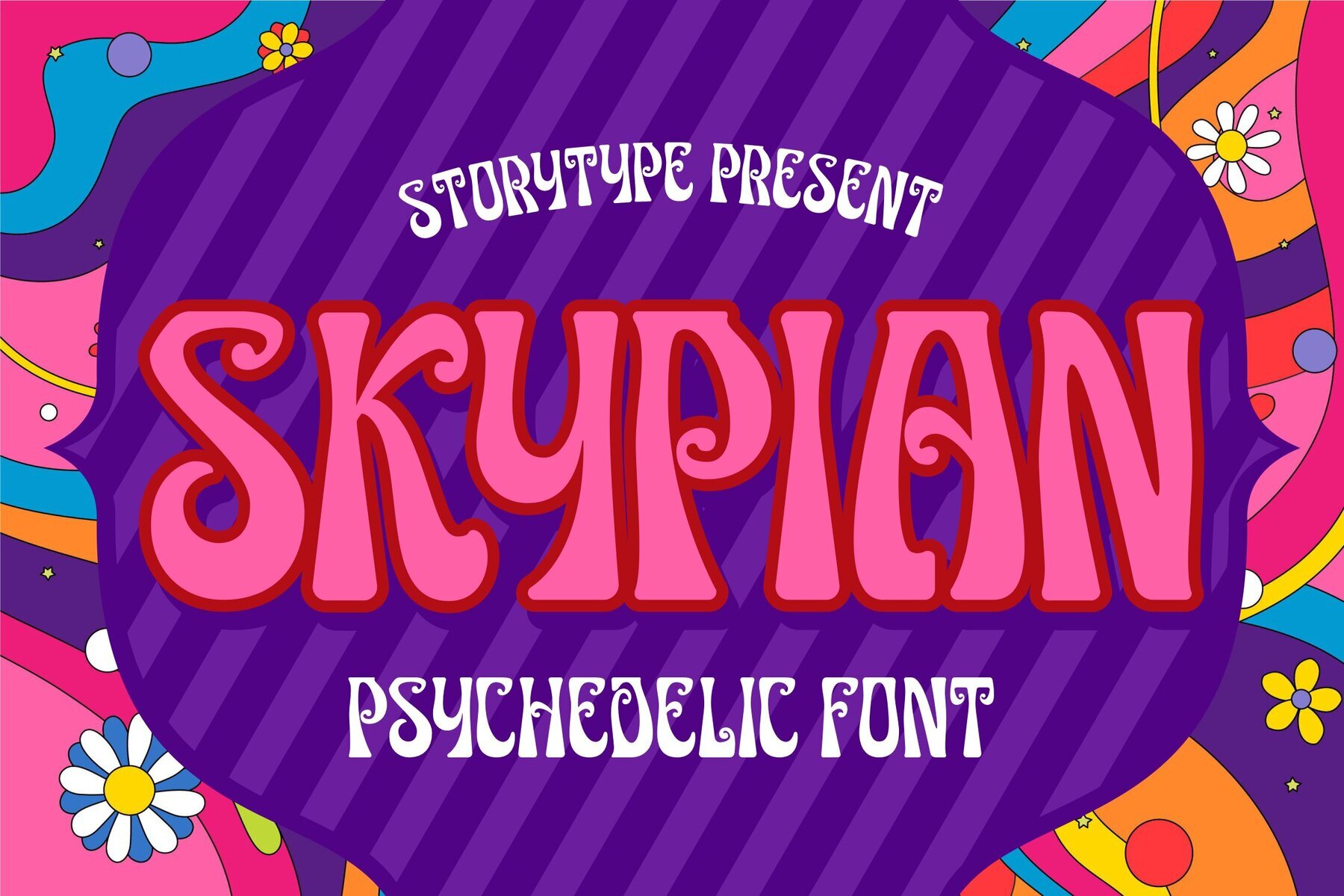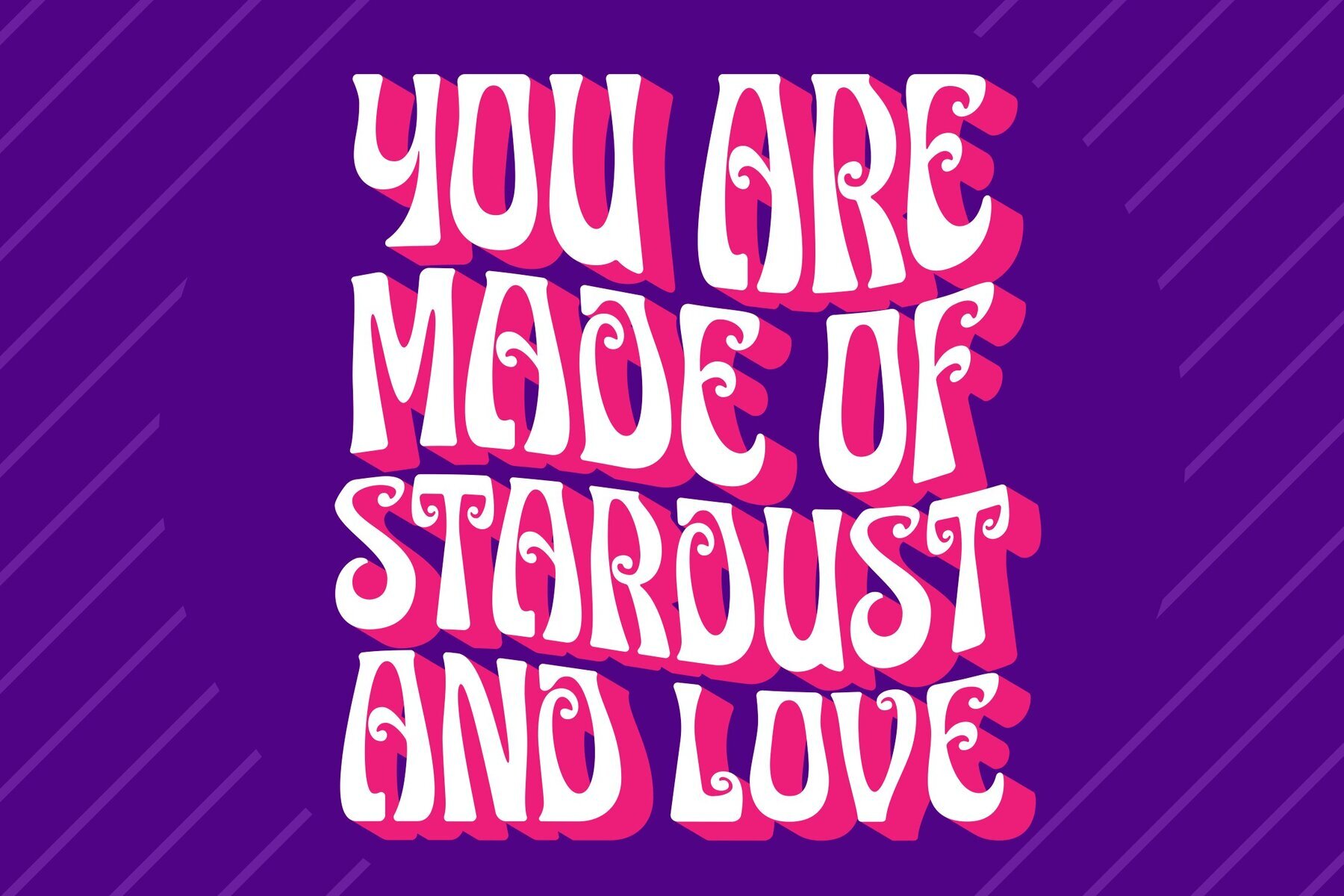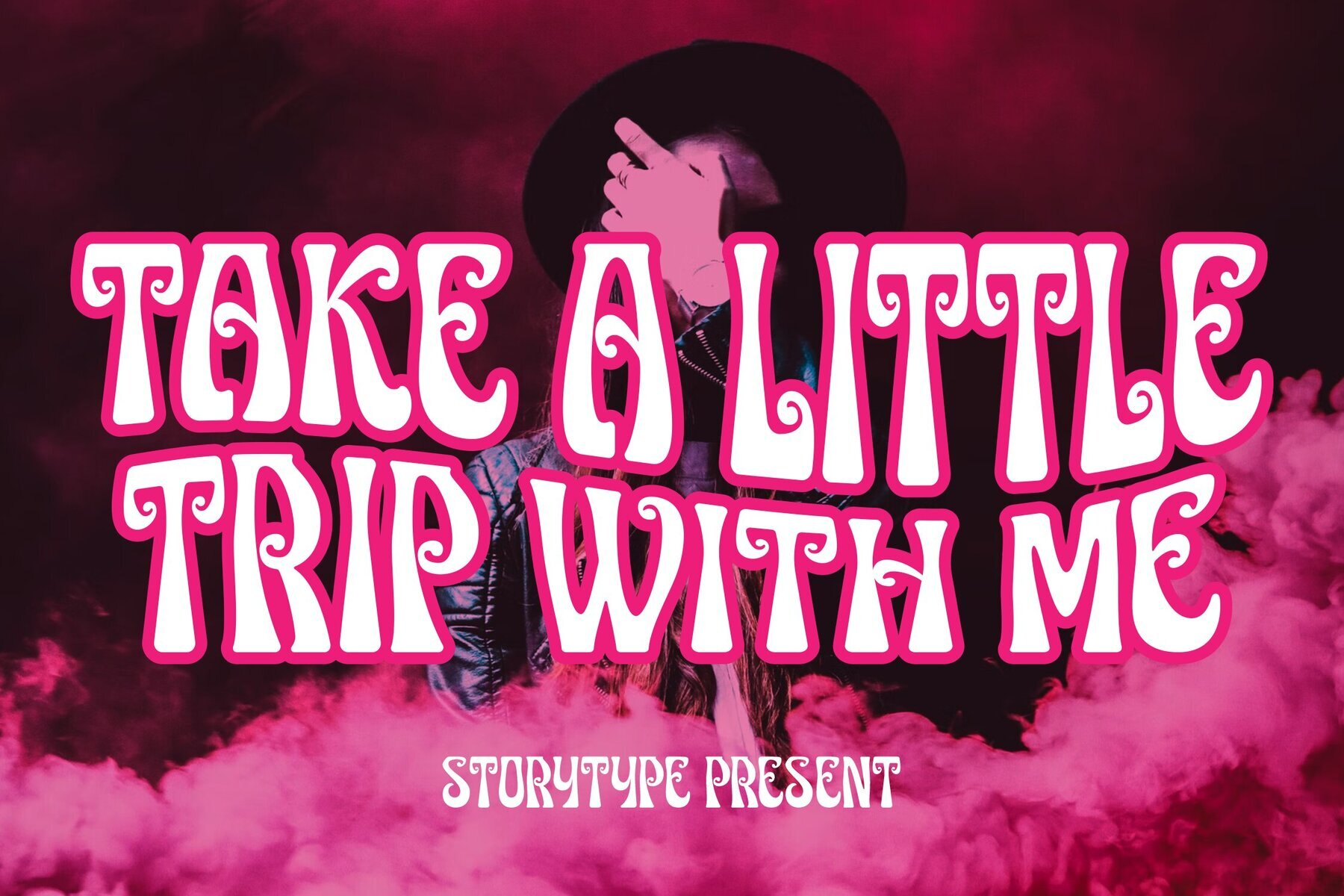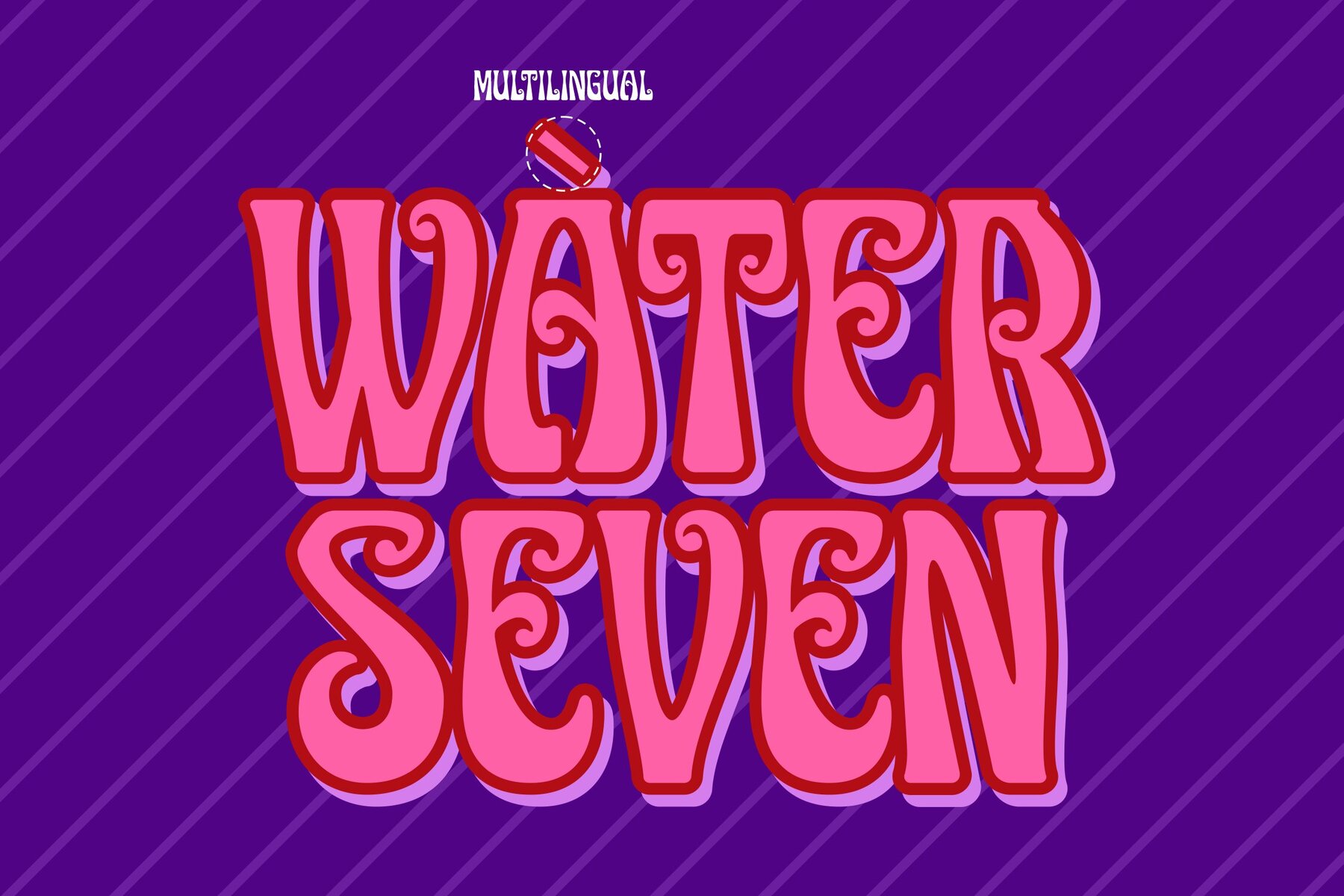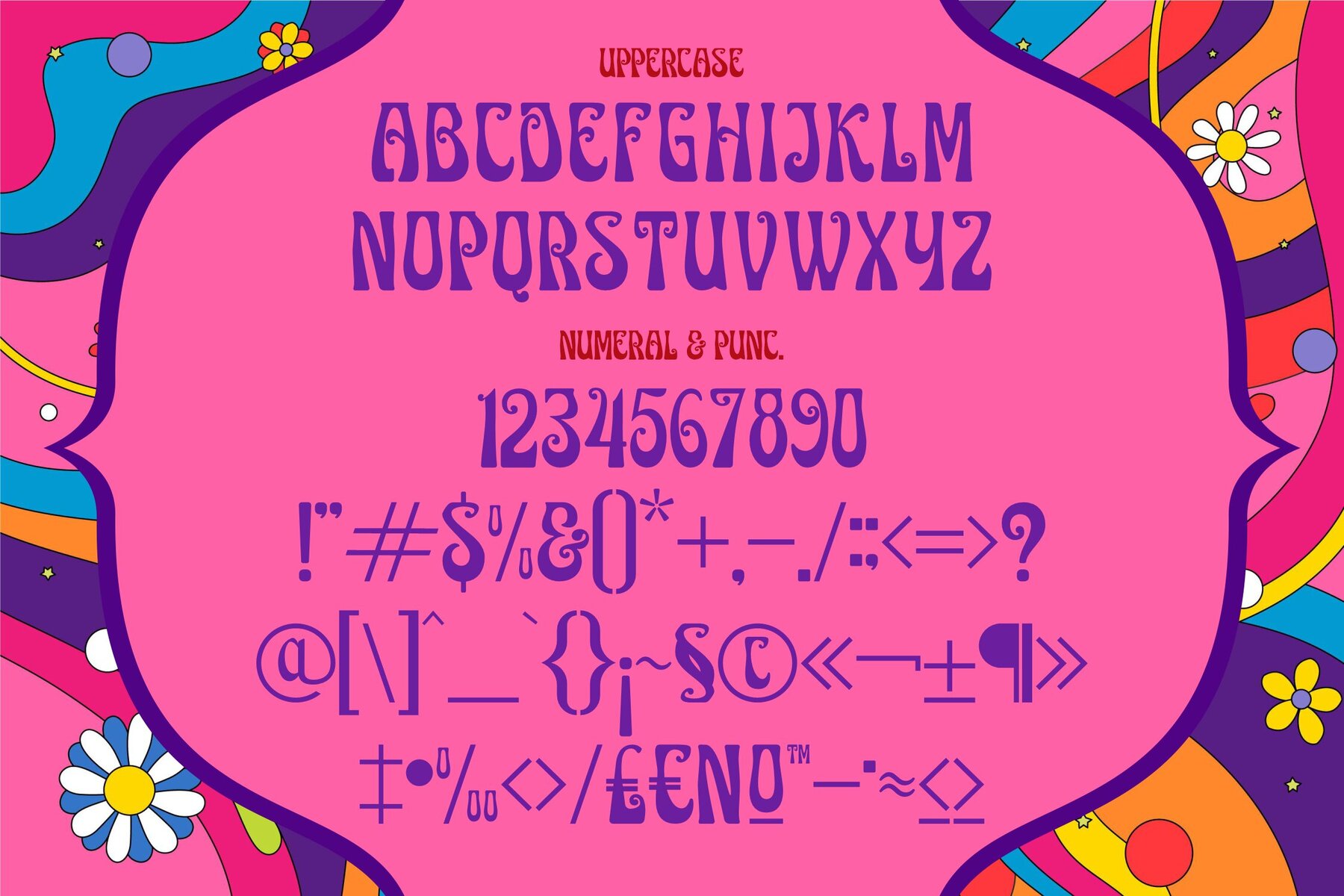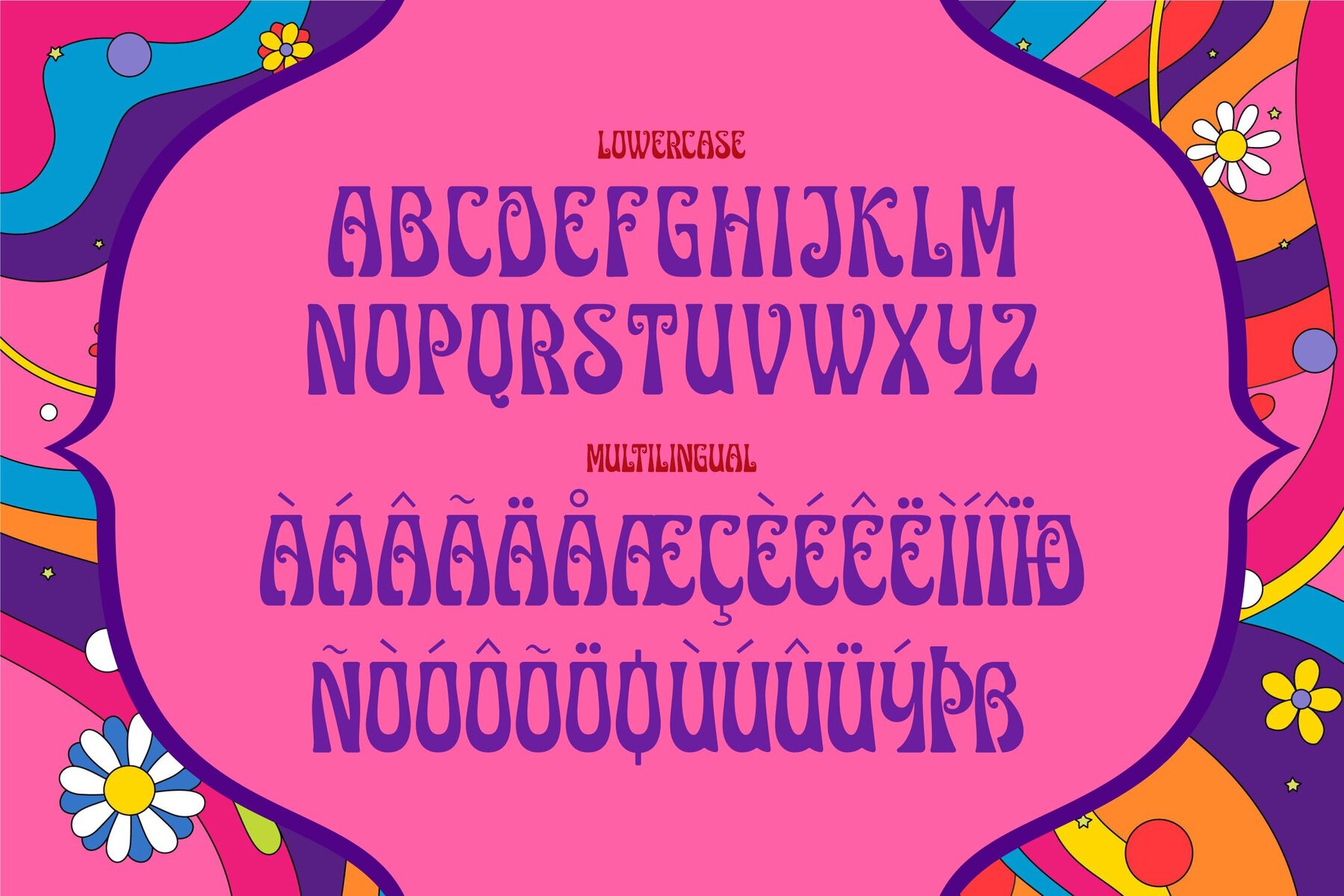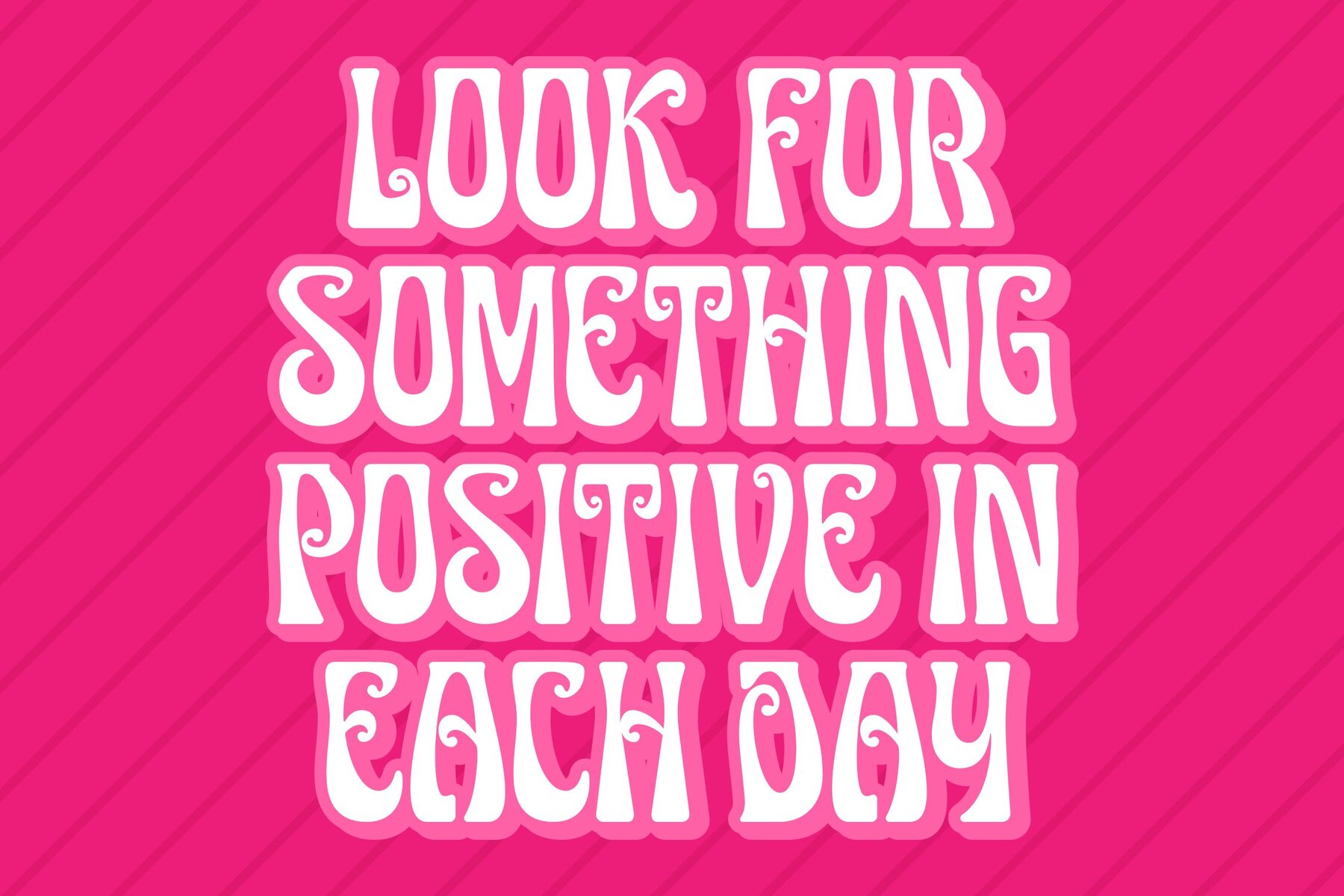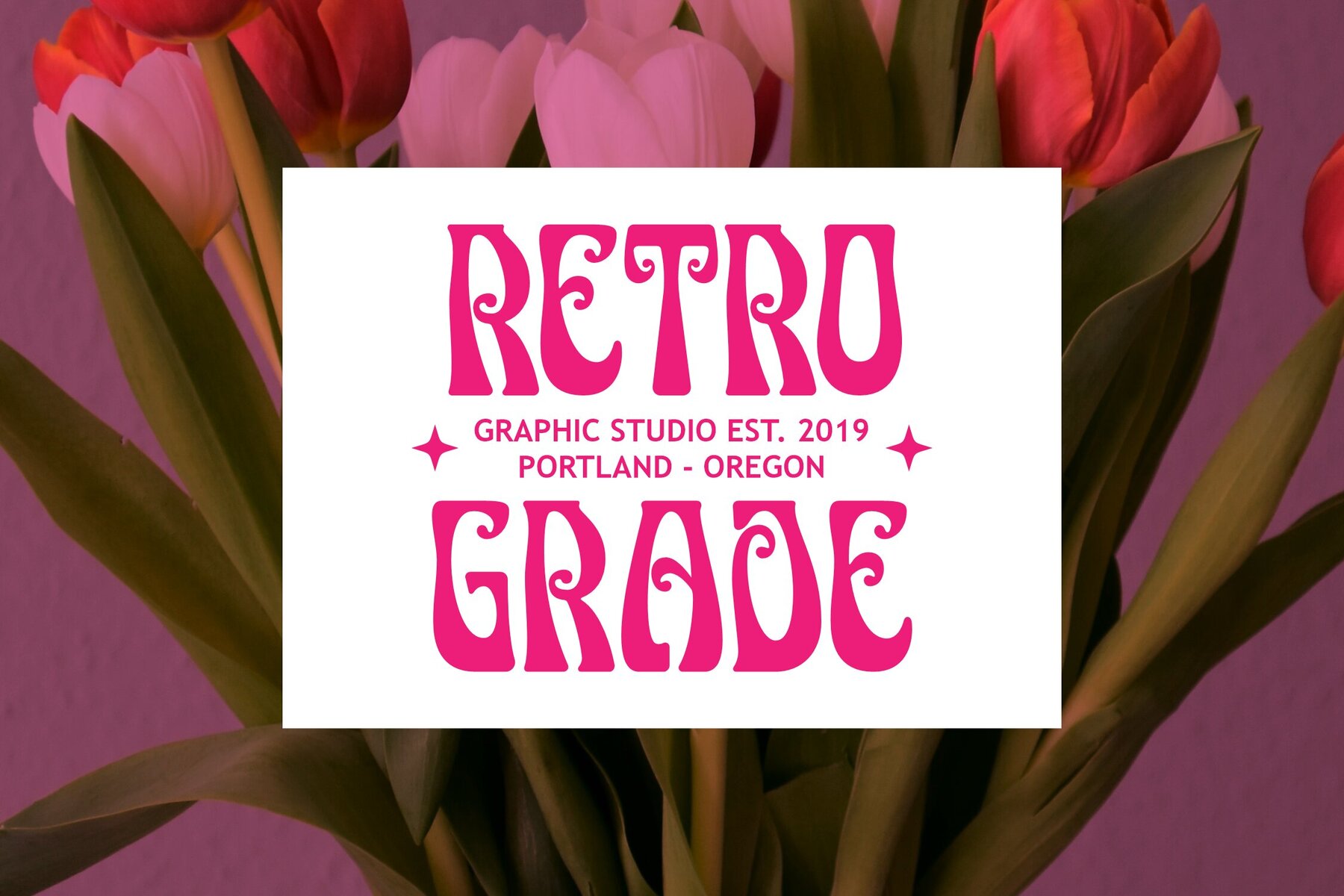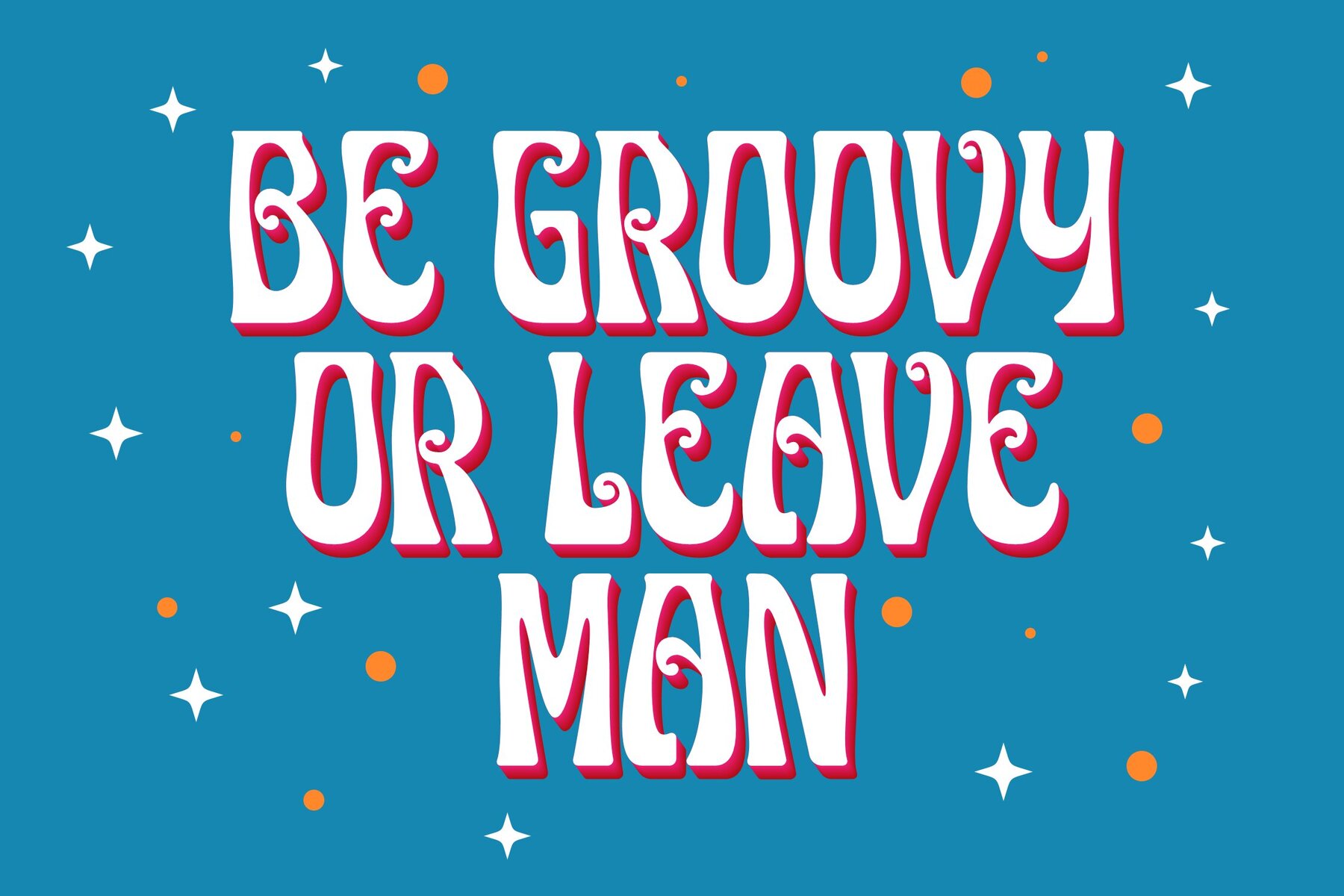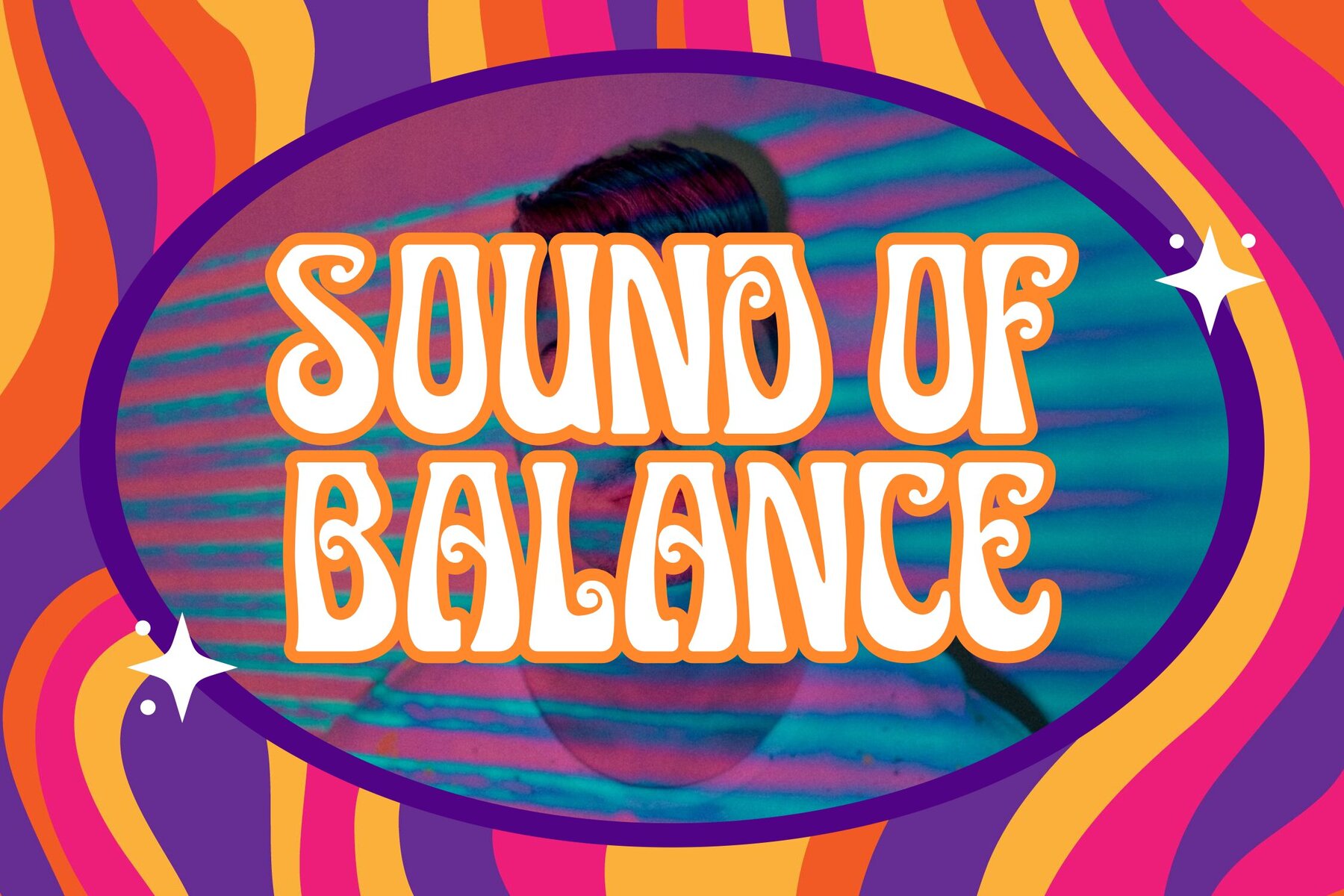
Skypian Font
The Skypian Typeface brings a sophisticated fusion of modern and classic serifs. This typeface, crafted meticulously, embodies a unique style that resonates with elegance and luxury. Perfectly suited for logos, book or movie titles, fashion branding, magazines, and beyond, Skypian offers a versatile palette for diverse design projects. Features: